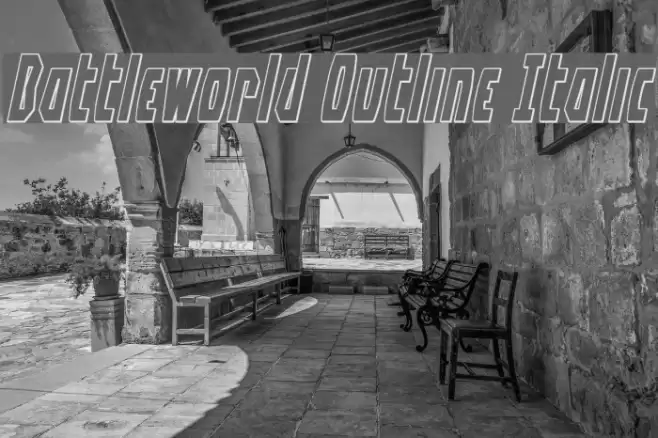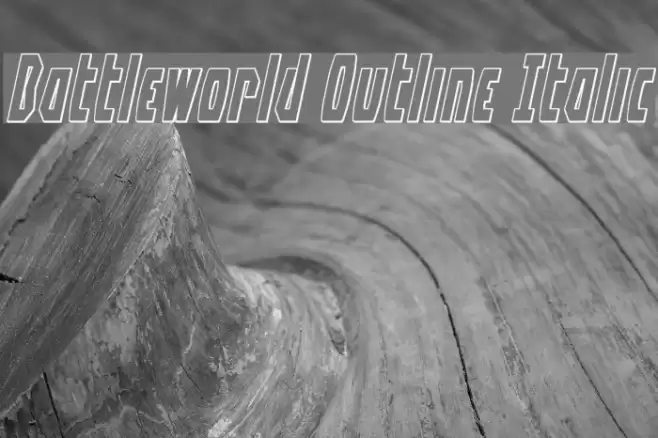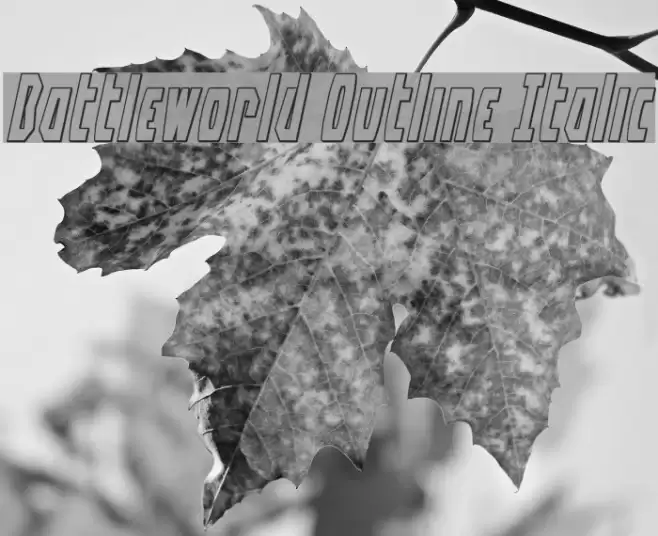
Battleworld Outline Italic Font
Battleworld Outline Italic Description
This font features a bold, dynamic outline style with an italic slant, giving it a sense of movement and energy. The uppercase and lowercase letters are designed with sharp angles and clean lines, creating a futuristic and edgy appearance. The numbers and special characters maintain this consistent style, making the font versatile for various design needs. The outline effect adds a layer of depth, making it stand out in any composition. Its unique style is perfect for projects that require a modern and impactful look.
A bold, italic outline font with a futuristic and dynamic style from Sci-fi fonts.
- Proposed Projects: Ideal for video game titles, movie posters, sports branding, and dynamic advertising campaigns.